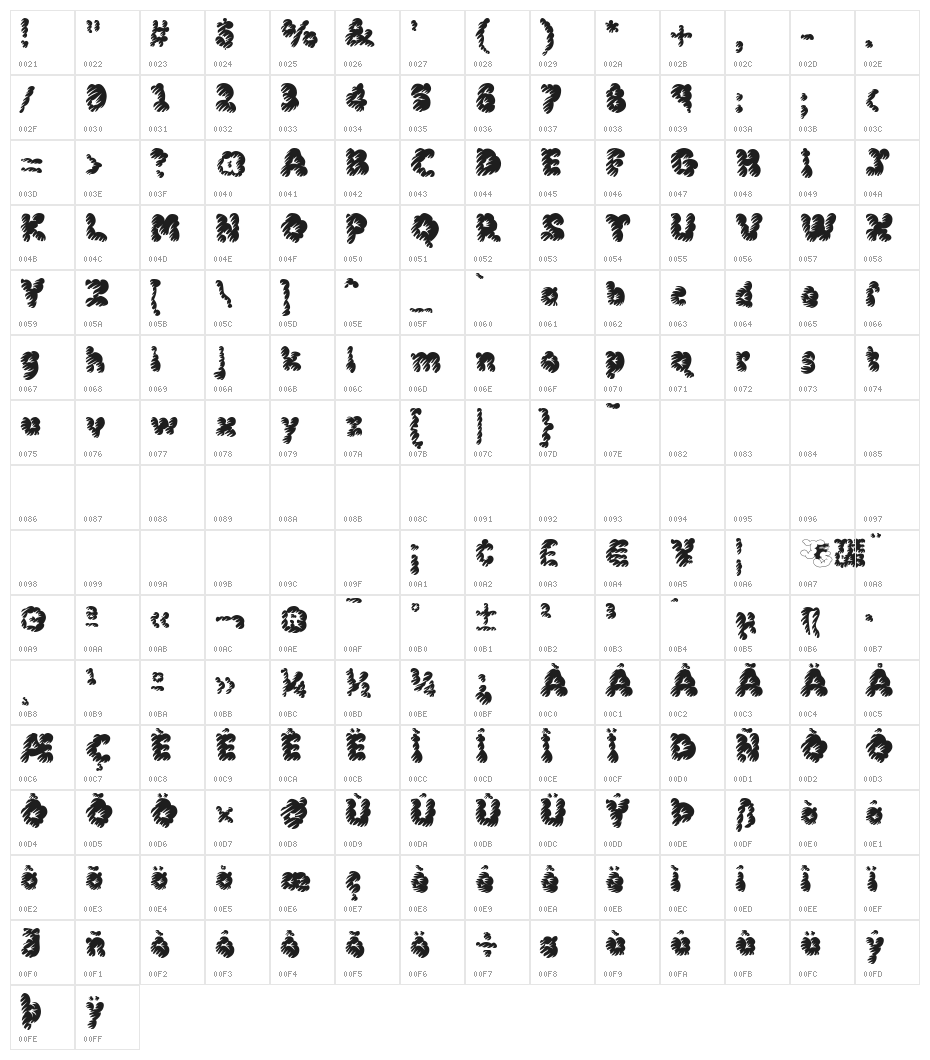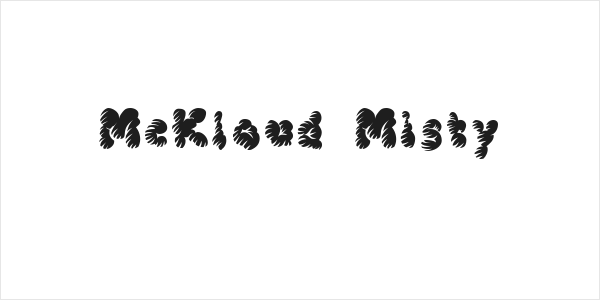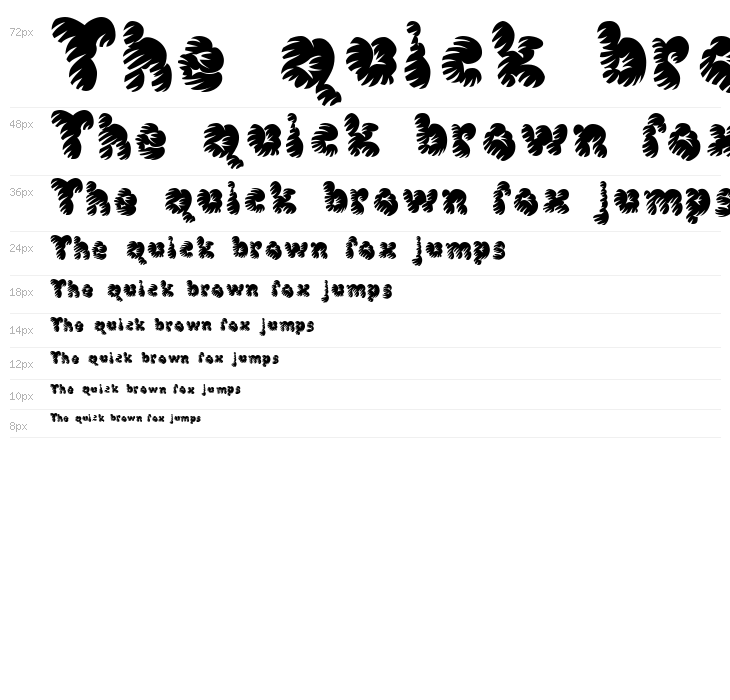
McKloud Misty Font
McKloud Misty Description
This font features a bold, cloud-like design with a playful and whimsical appearance. Each character is filled with a pattern that resembles swirling clouds or fluffy textures, creating a sense of movement and lightness. The letters are rounded and full-bodied, giving them a substantial presence on the page. The unique texture within each character adds depth and visual interest, making it stand out in any design. This font is particularly suitable for creative projects that require a touch of fun and imagination. Its distinctive style makes it ideal for eye-catching headlines or artistic displays.
| Overall Style | Whimsical |
| Use Case | Headlines, Logos, Artistic Displays |
| Proposed Projects | Ideal for children's book covers, playful branding, creative posters, and whimsical invitations. |